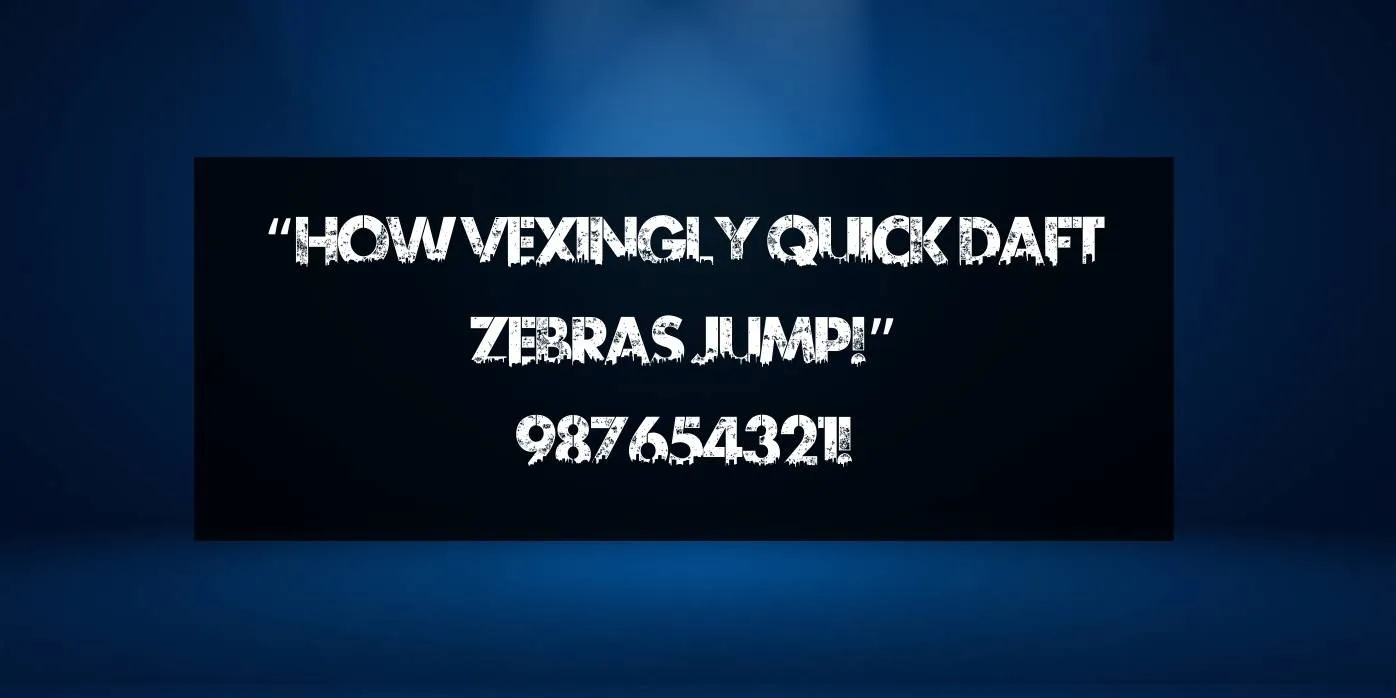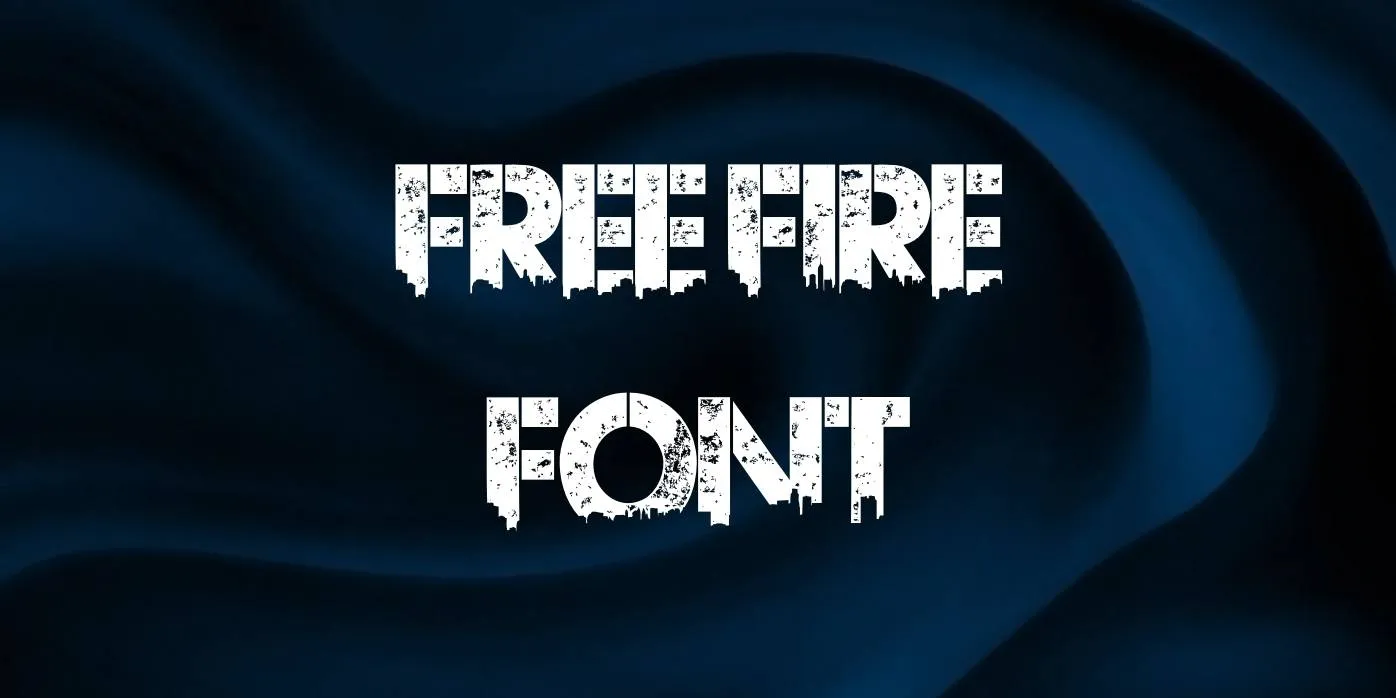
Free Fire Font
Free Fire Font belongs to the display font family. It is widely used in many designs due to its unique and attractive appearance.  This stunning typeface was designed on the base of a famous game named Battle Royale Mobile Game. This typeface was used for the logos of this game. It was released in 2017.
The main aim of the designers was to make this logo look more attractive and different from others. And they have done a great job in designing this font. This font can be used for both personal and commercial purposes. You can also use Kiss band font which is closest to this font family.